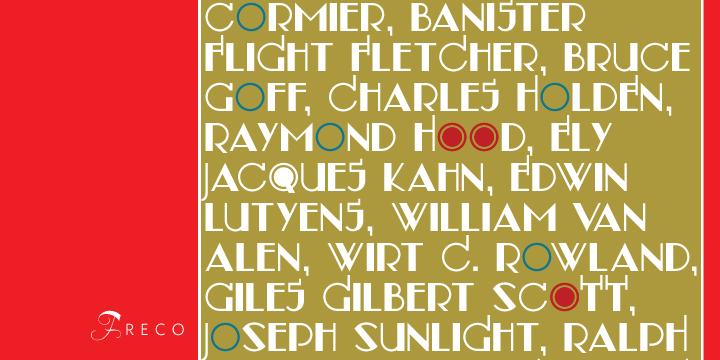
Freco is a art deco font published by Canada Type.
Freco is a celebration of the short but very productive life of Dutch designer and illustrator Fré Cohen (1903-1943). This font is mostly an assembled compilation of letters Fré created for a variety of print designs over the years, showcasing her consistent talent for the architectural moderne, art deco, and Wendingen styles of her era.
Freco is a prime example of how seemingly minute details can visually be most relevant and consequential in typography. Fré Cohen’s subtle variations on the familiar art deco forms and contrast have made her typographical work so stunning it continues to be taught and celebrated as some of the finest 20th century Dutch design.
Freco comes in an expanded character set that includes support for Central and Eastern European languages, as well as Turkish, Baltic, Celtic, Maltese and Esperanto. It also includes complementary alternate forms and letter combinations for added flexibility in usage.